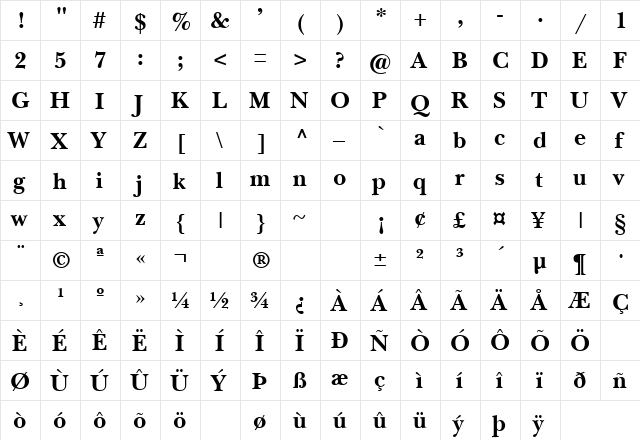
CLOCKWISE. 3 Bold
Design Context for CLOCKWISE. 3 Typeface
CLOCKWISE. 3 takes a measured approach to typography — its balanced proportions and neutral character make it a reliable workhorse for both digital and print work. Its bold stroke weight gives it real presence on the page.
Pro Tip: Use CLOCKWISE. 3 in both headline and body roles to test its range before committing to a single application.